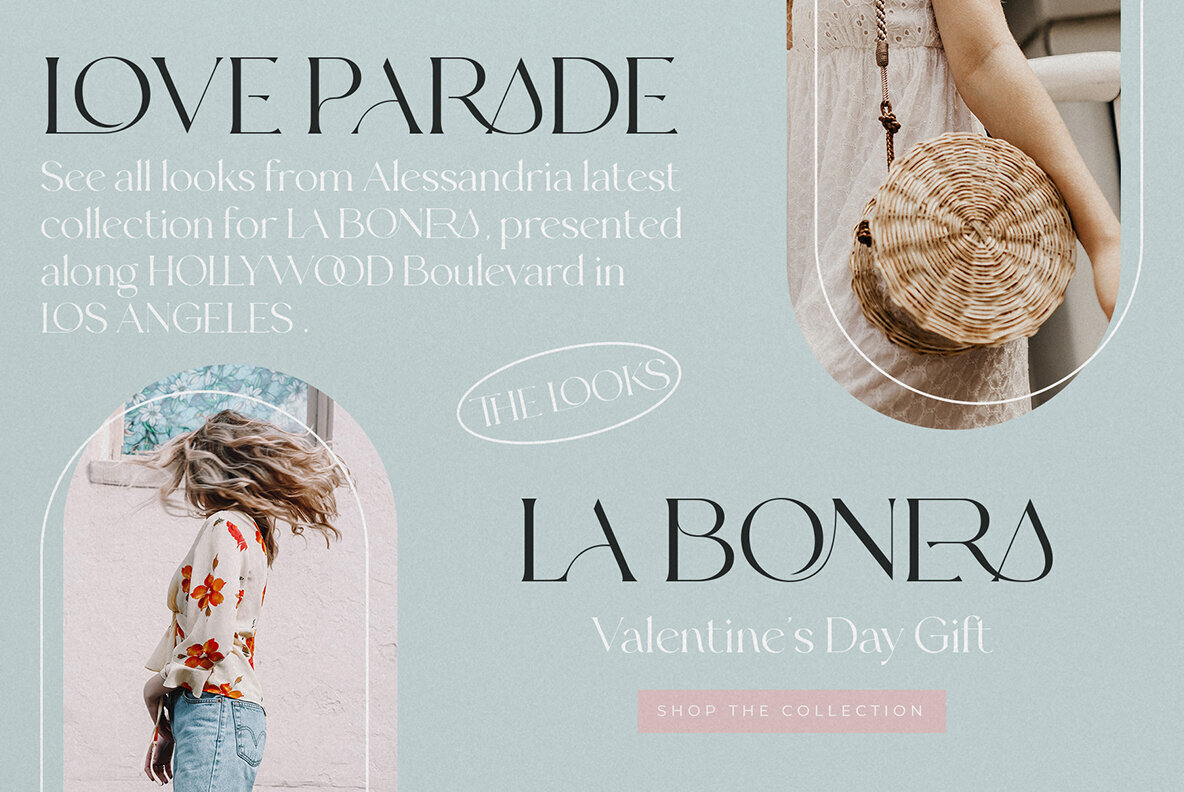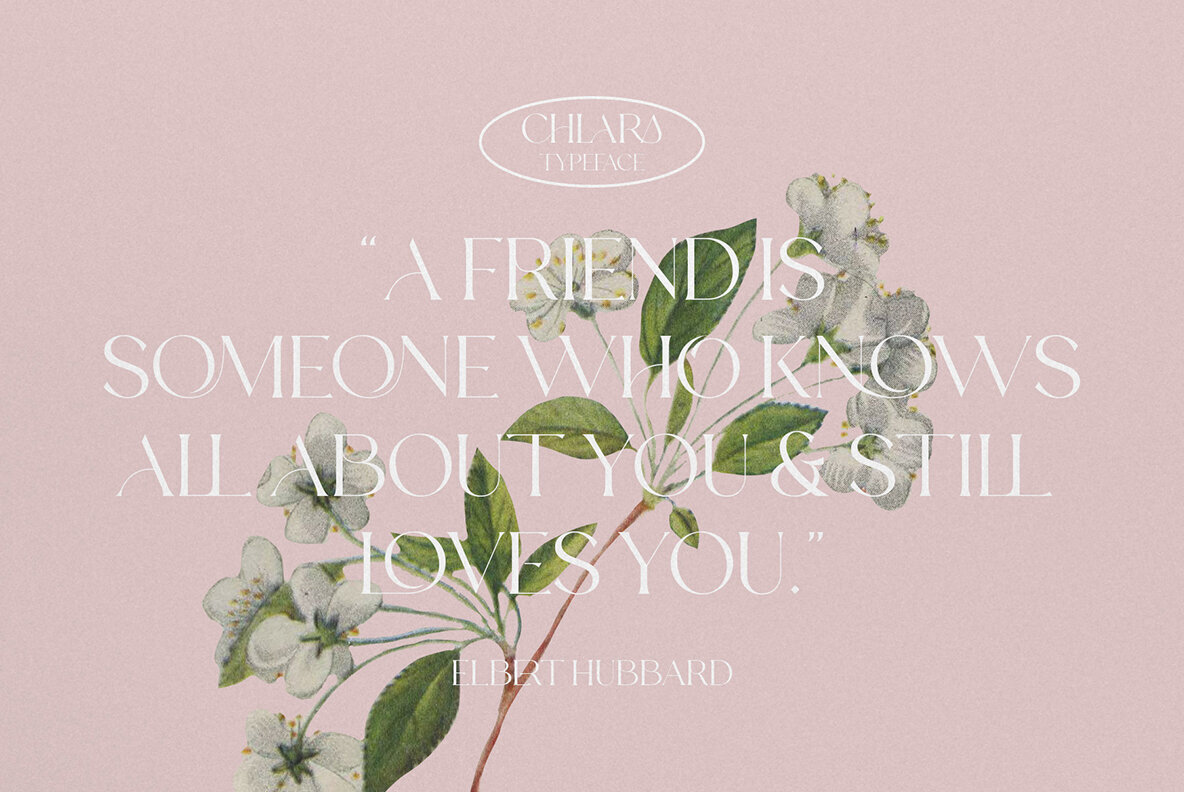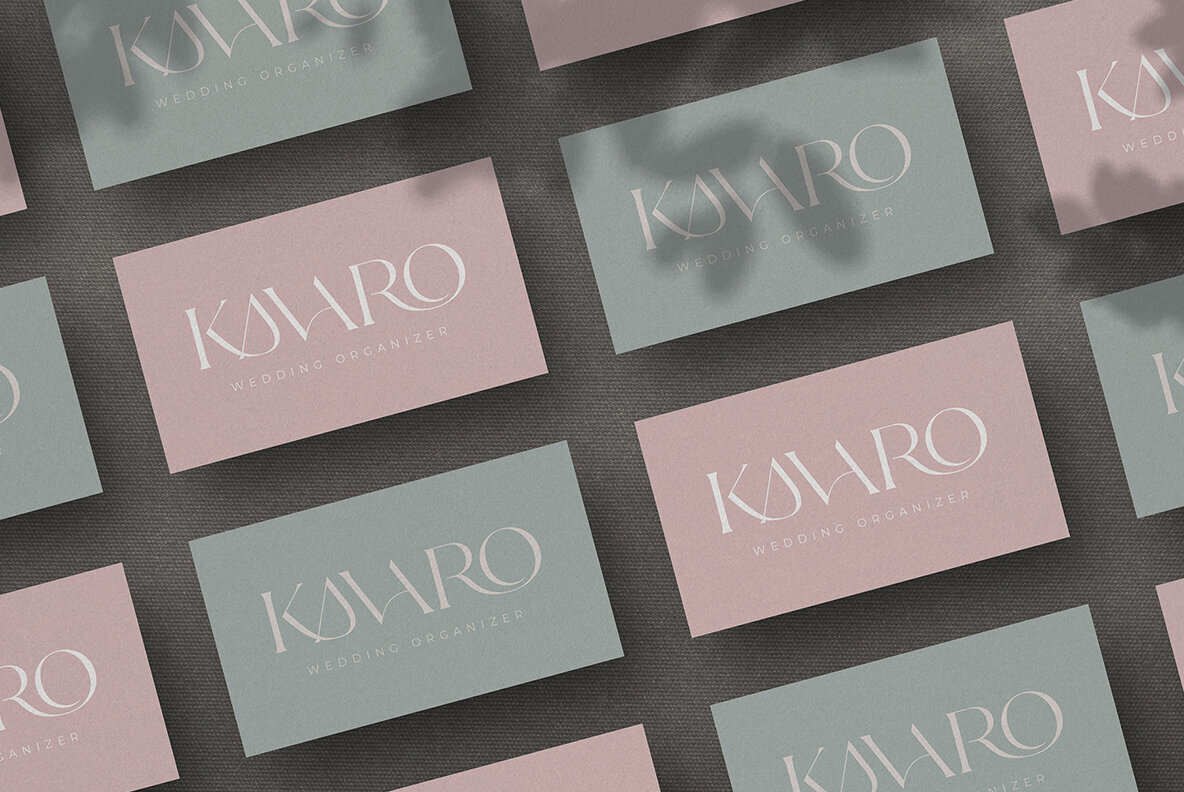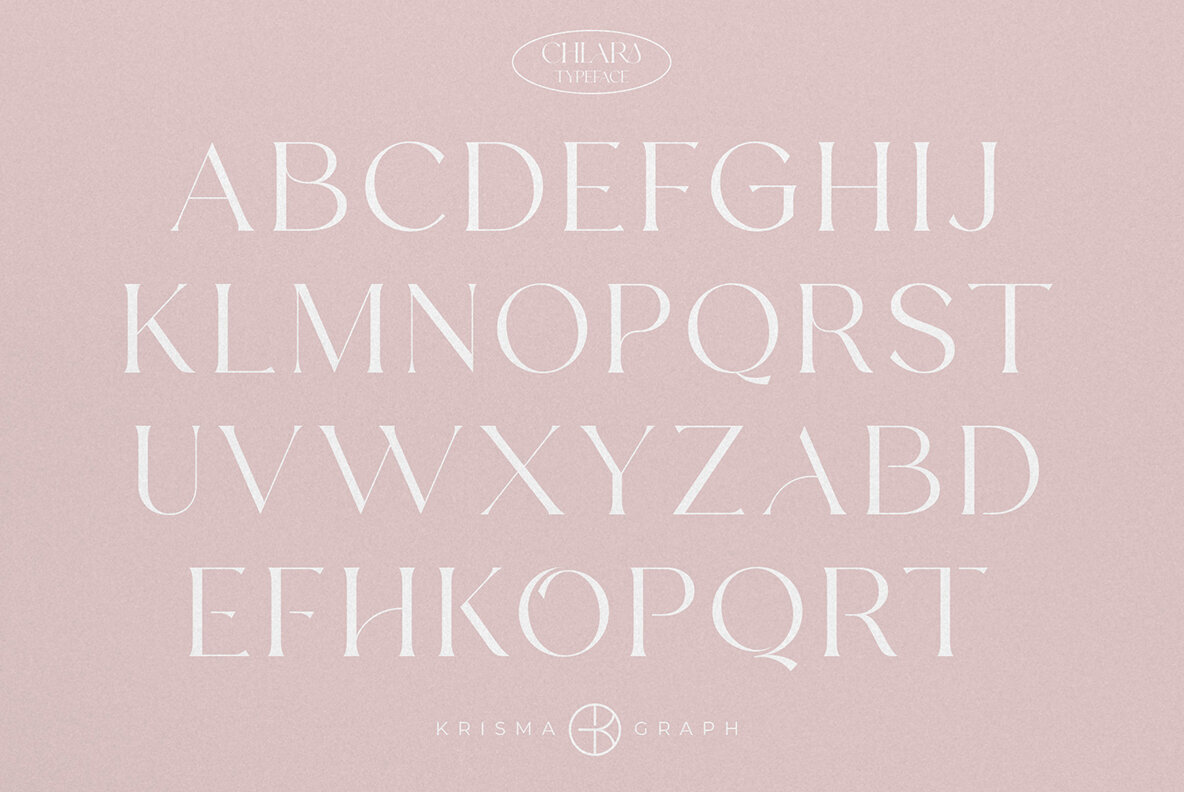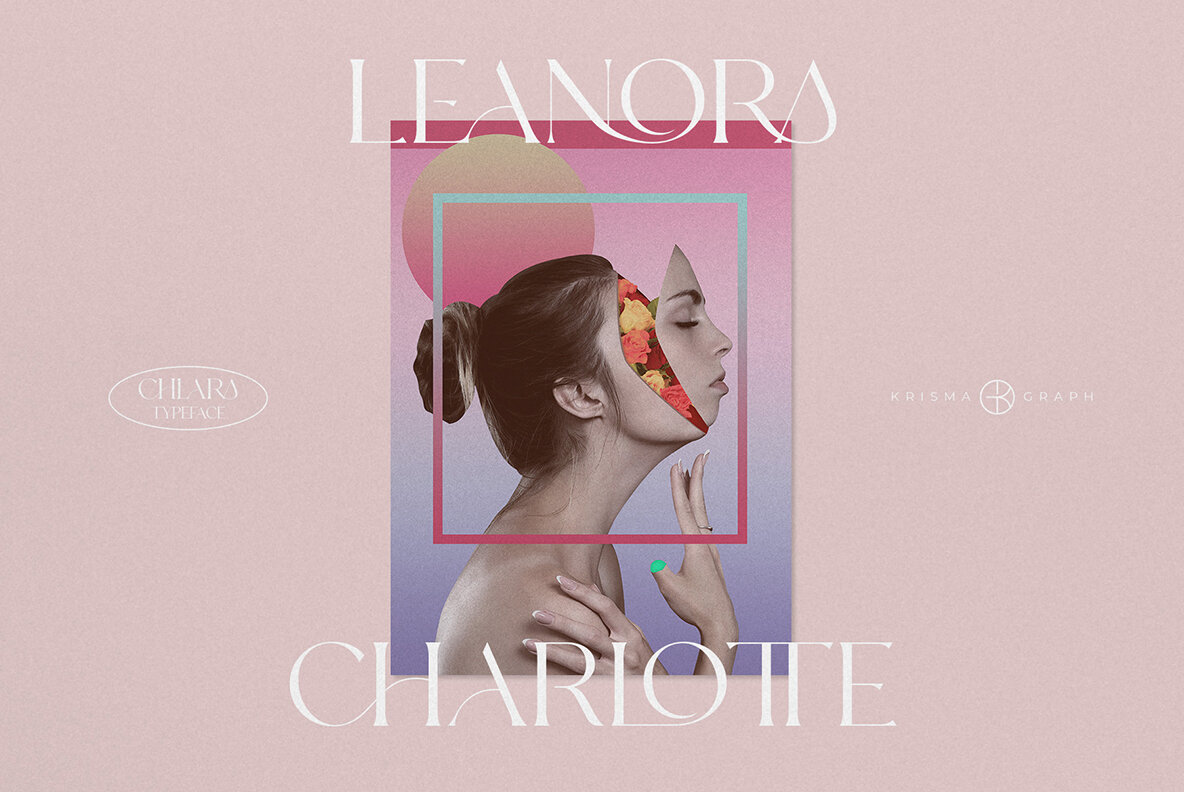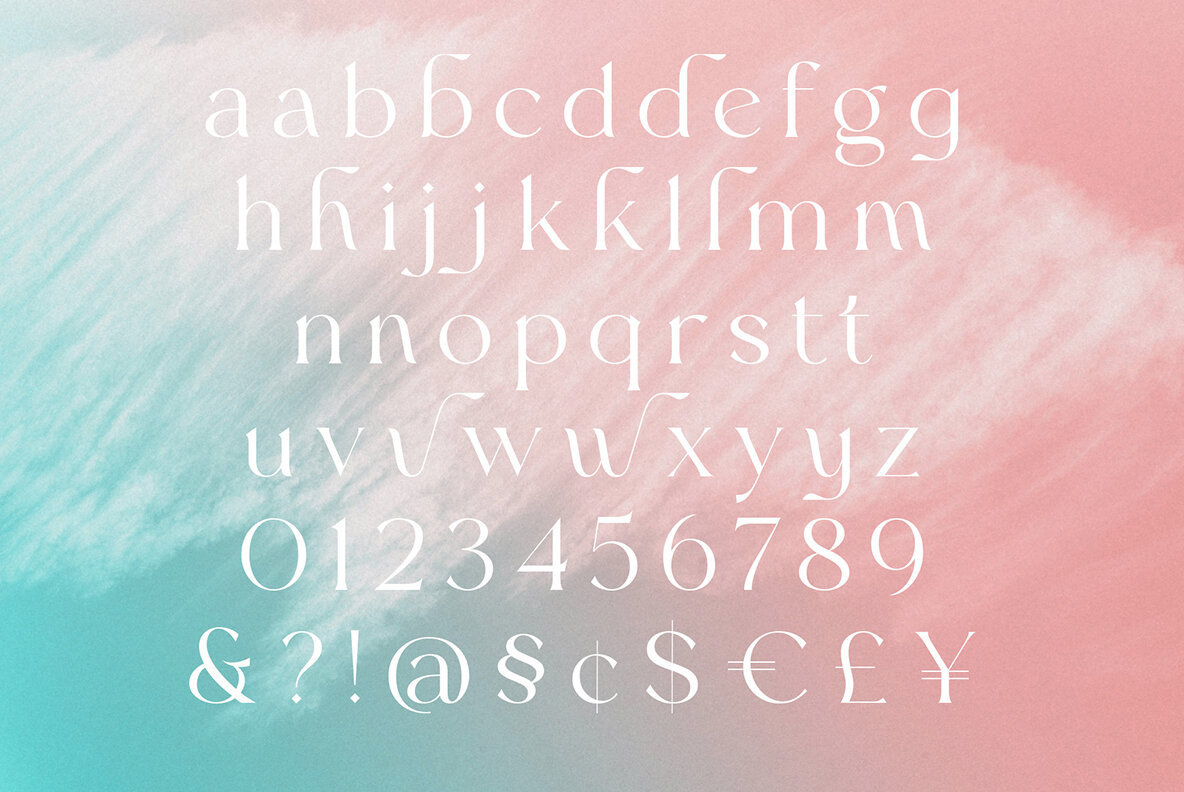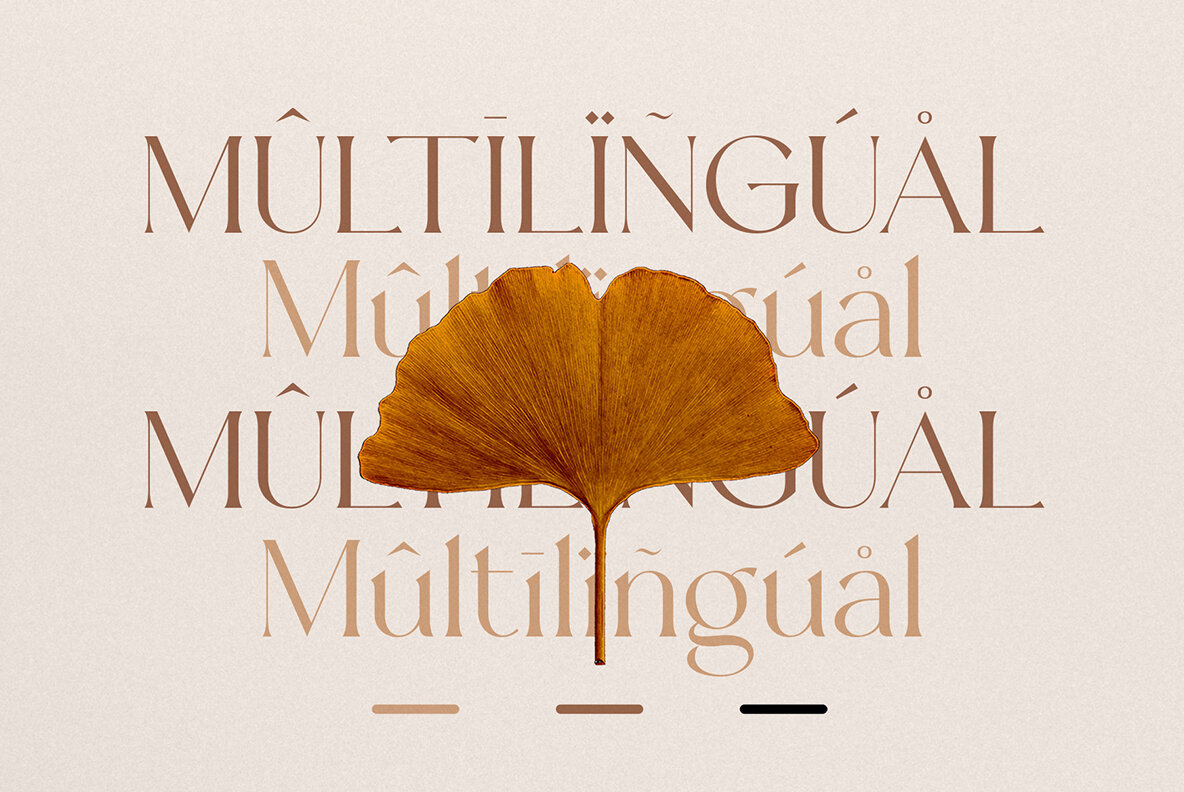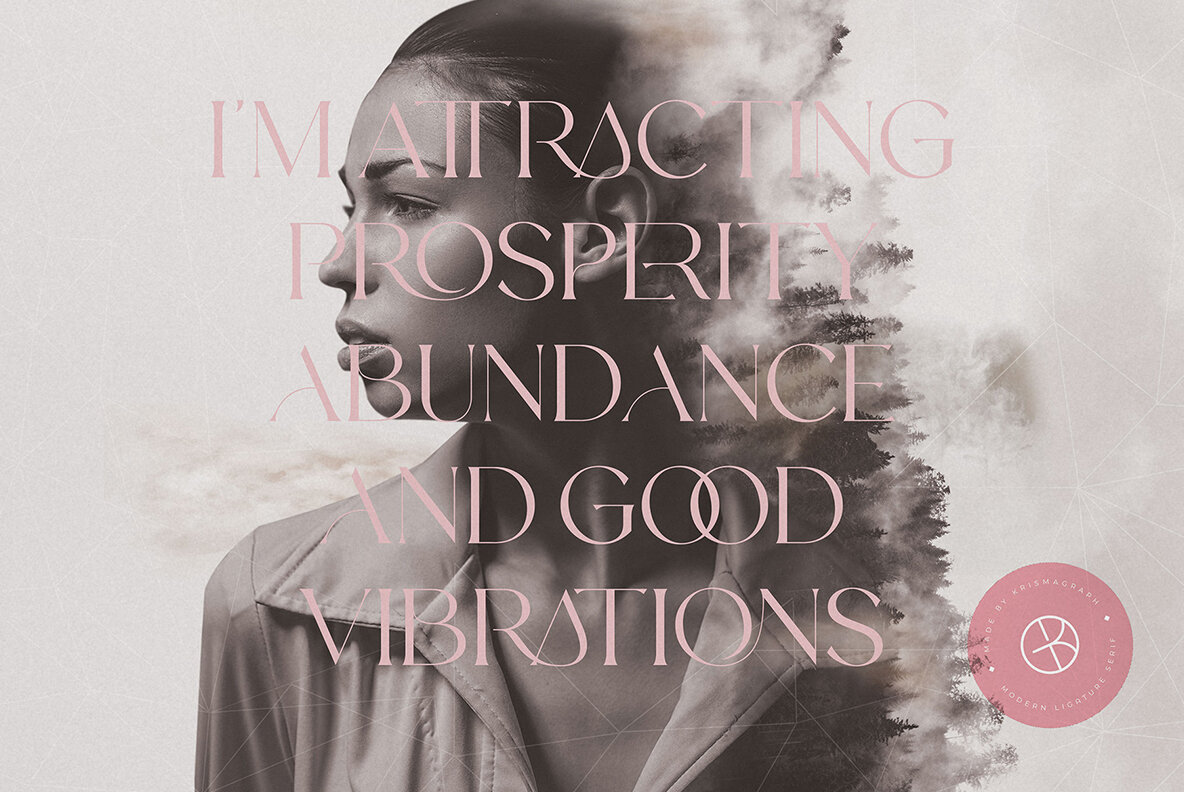
Chlara is a modern serif font that has soft curves and high contrast glyphs to give it an elegant yet feminine quality. This typeface works well for quotes or body copy, best used in layouts such as logos with headings; however you can also use this fun little discovery when designing your own invitations!